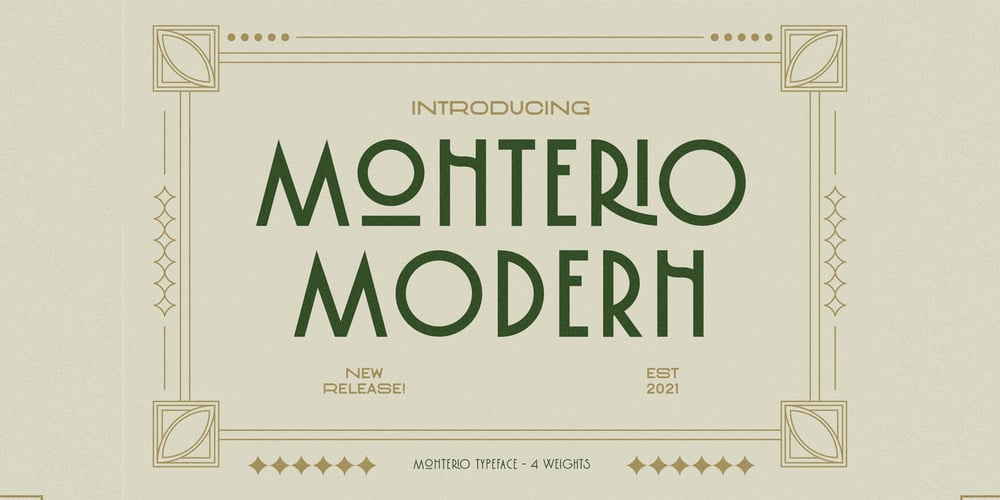
CCS Monterio
CCS Monterio font
CCS Monterio Font Family was designed by Kurt Harahap and published by Creative Corner Studio. CCS Monterio contains 4 styles and family package options. CCS Monterio sans is a all-caps sans serif contemporary Art Deco typographic style , If you’re into classic/vintage letter designs, then this typeface suits best for you. Packed with 300+ glyphs (alternate and multilingual characters included), now it’s your time to go crazy and explore the uniqueness of this typeface!